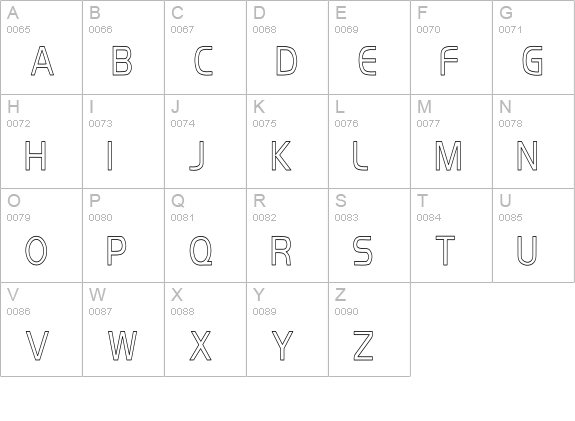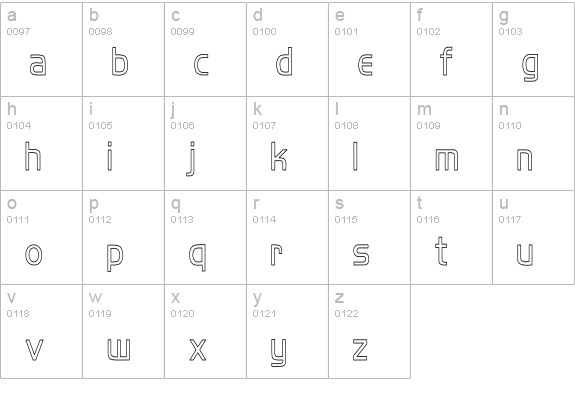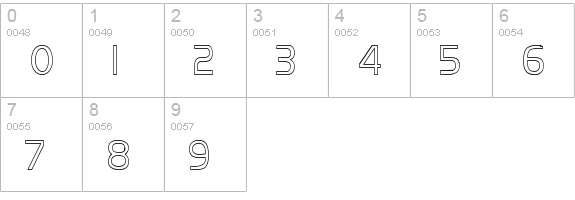
Koshgarian-LighHC Font Details
Introducing the stunning Koshgarian-LighHC font, a versatile typeface that effortlessly combines elegance and modernity. This font exudes a sense of sophistication with its sleek lines and balanced proportions, making it perfect for a wide range of design projects. With its timeless appeal and clean aesthetic, Koshgarian-LighHC is sure to elevate any text or graphic it is applied to. Whether you are designing a logo, creating a website, or crafting marketing materials, this font will add a touch of refinement to your work. The best part? Koshgarian-LighHC is available for free download at FontsMarket.com, allowing you to access this exquisite font without any cost. Don't miss out on the opportunity to enhance your designs with the elegance and charm of Koshgarian-LighHC. Download it today and let your creativity shine!